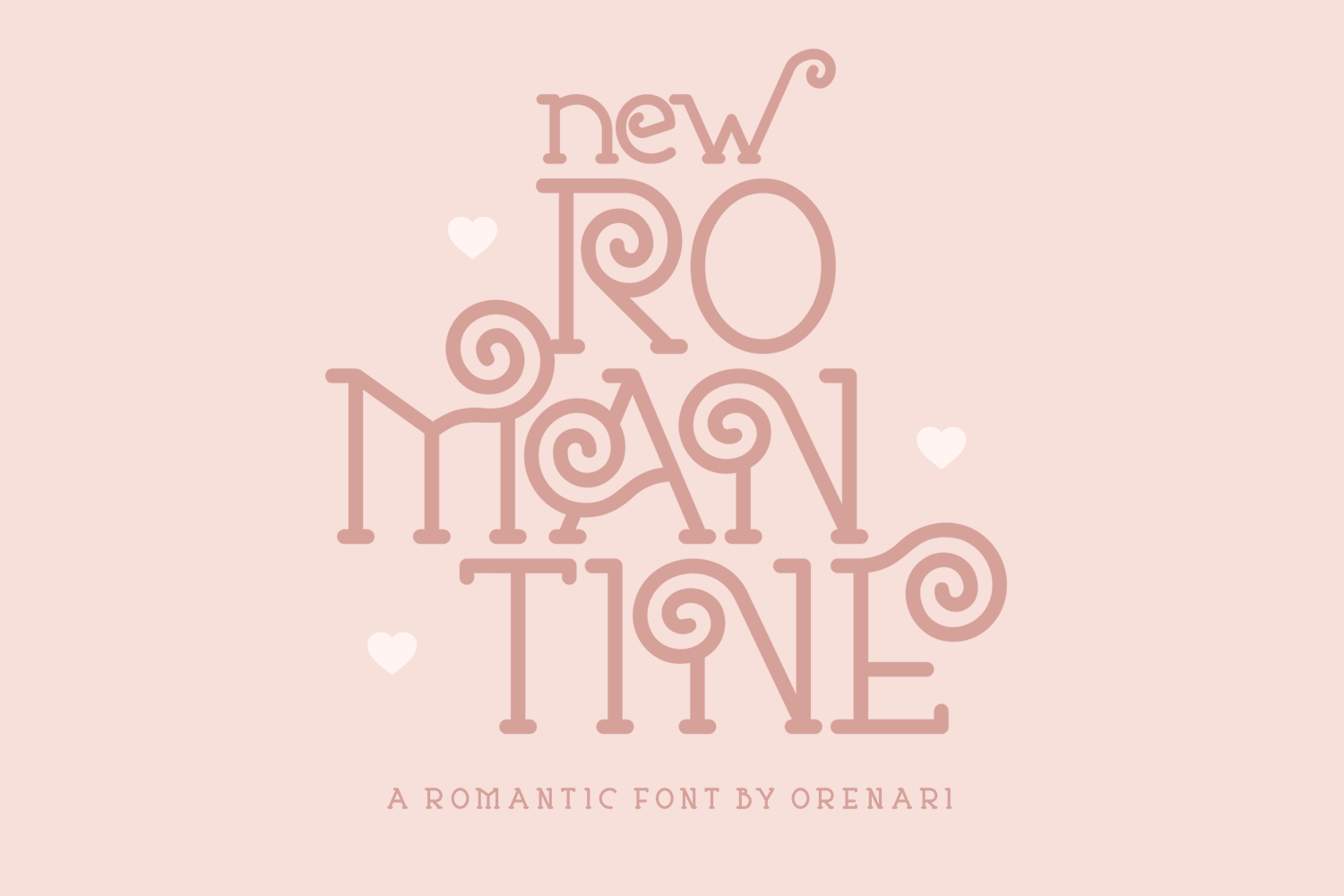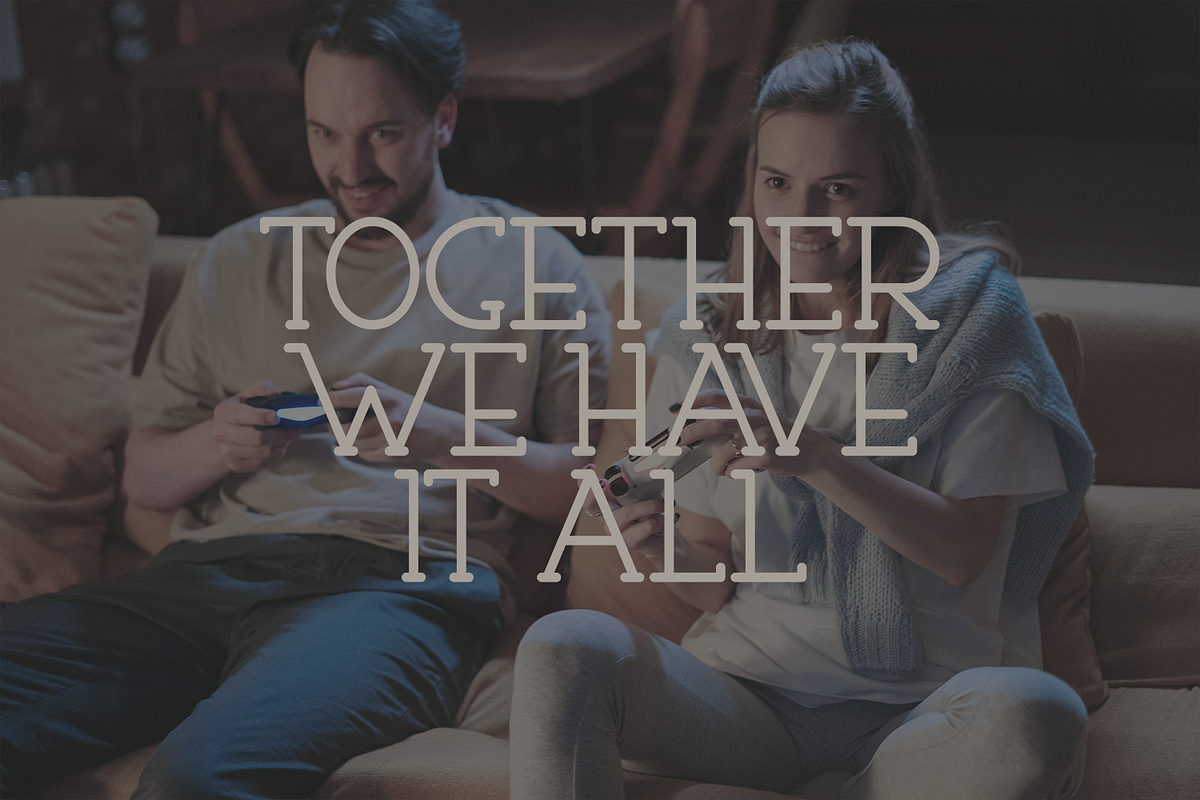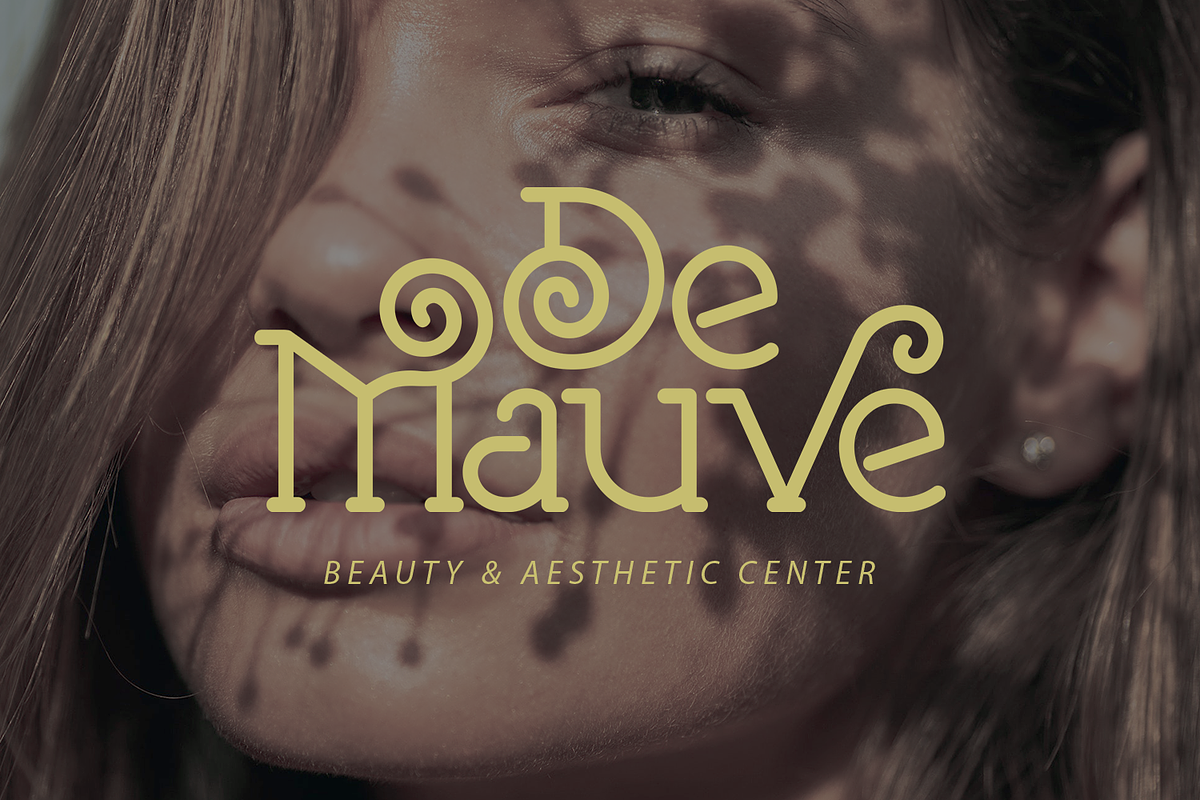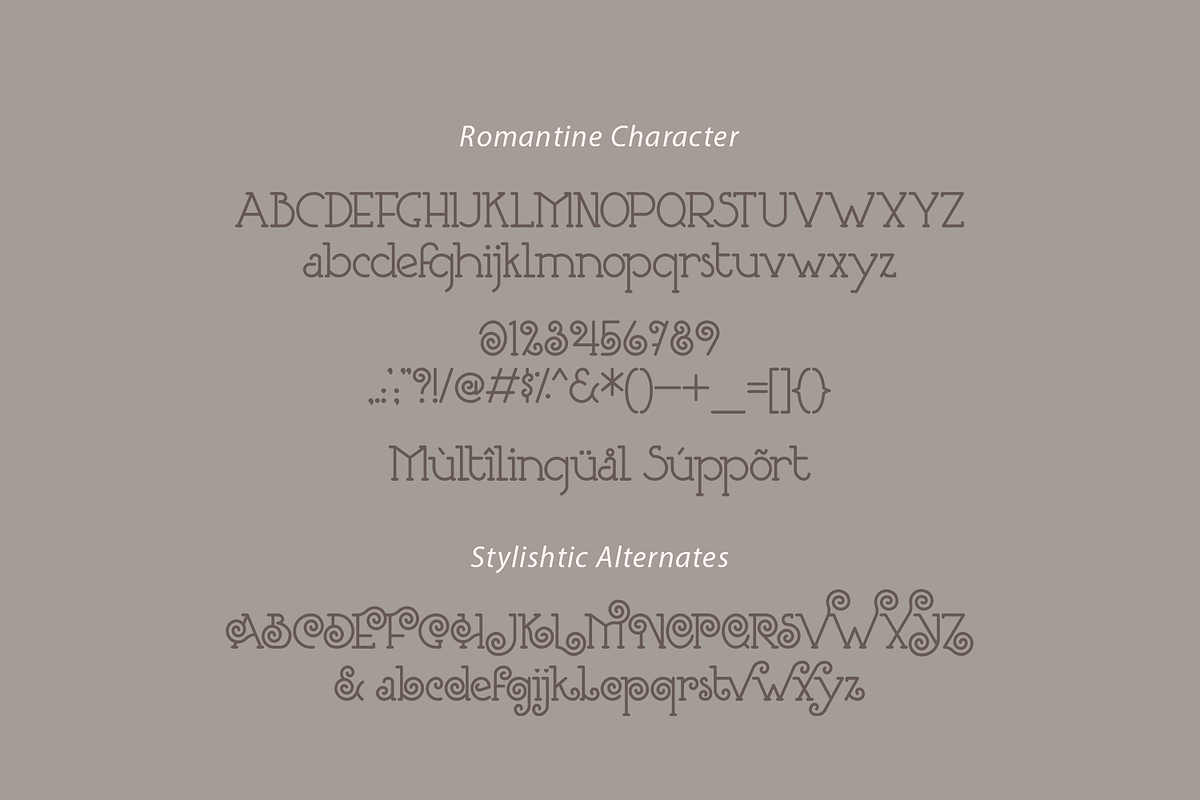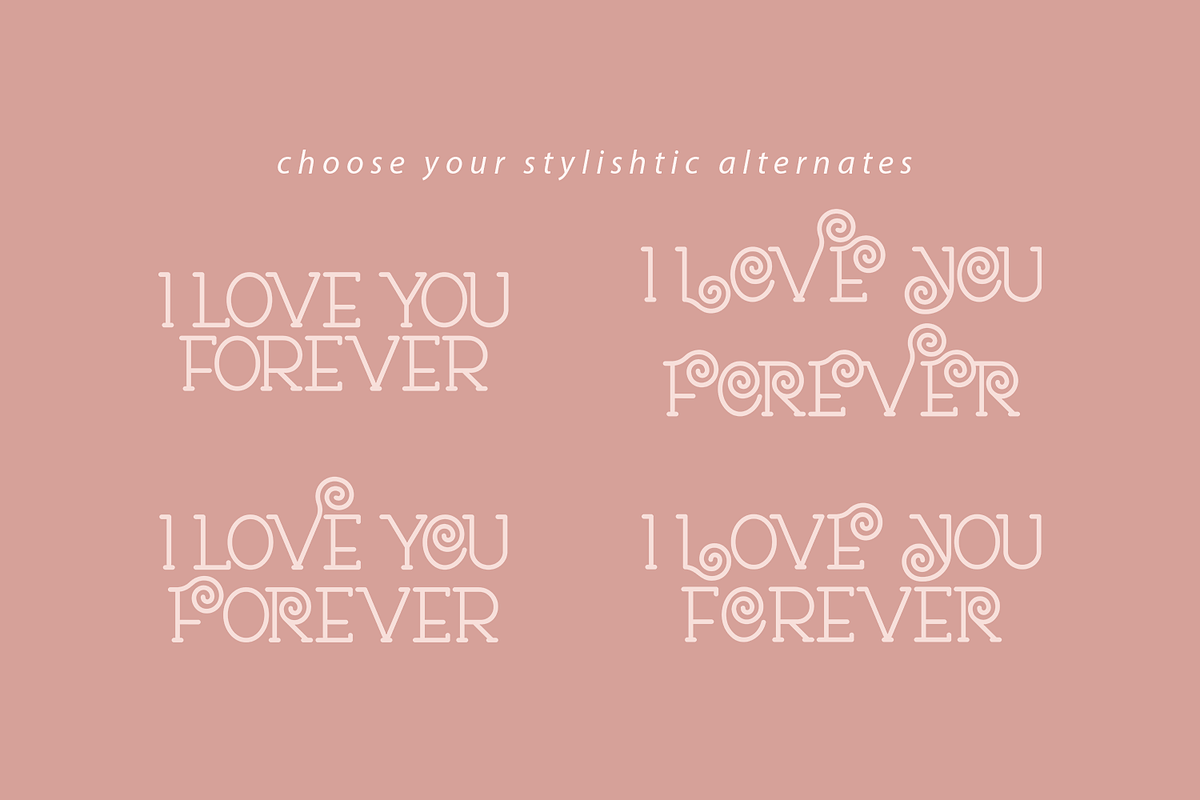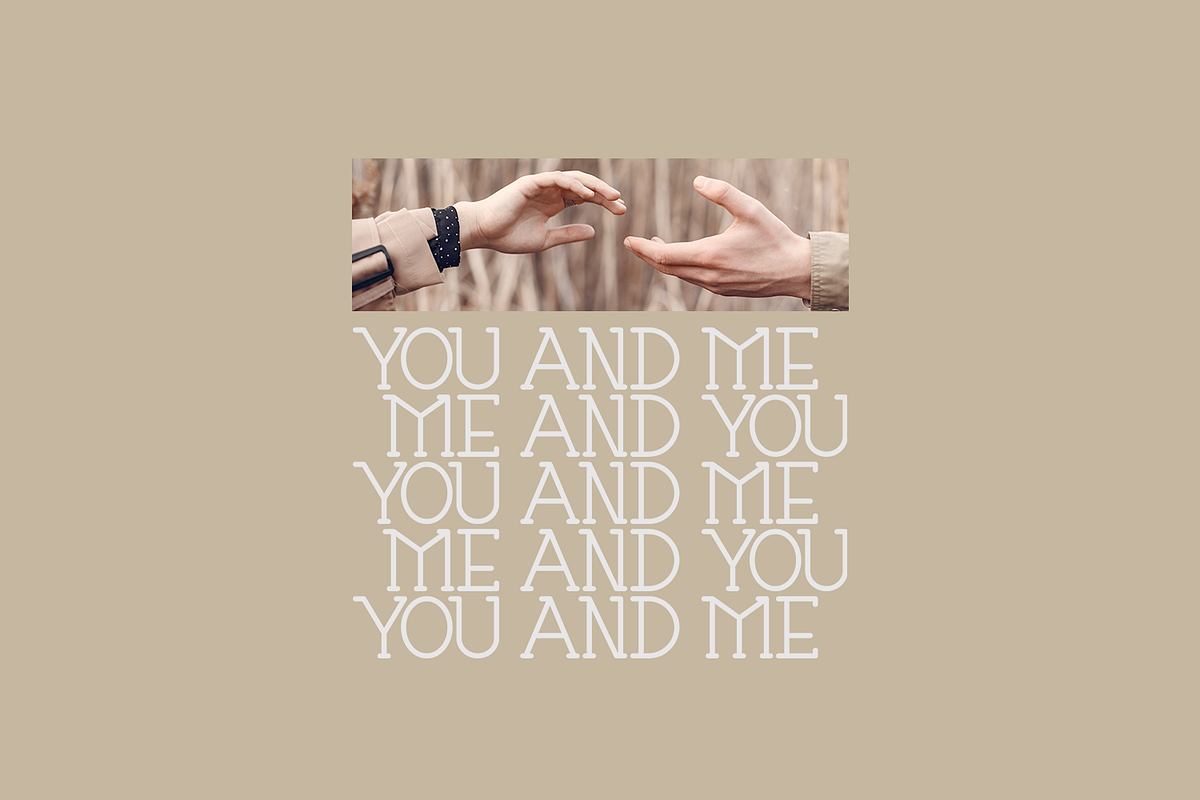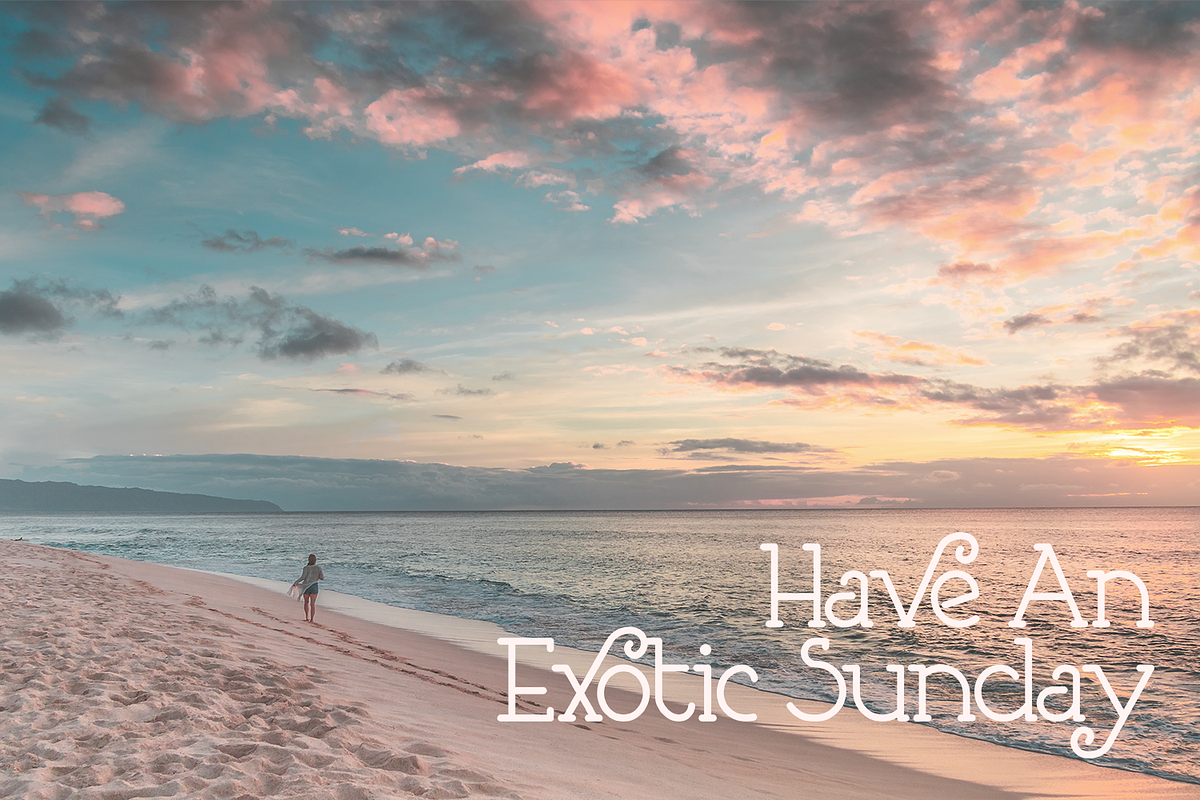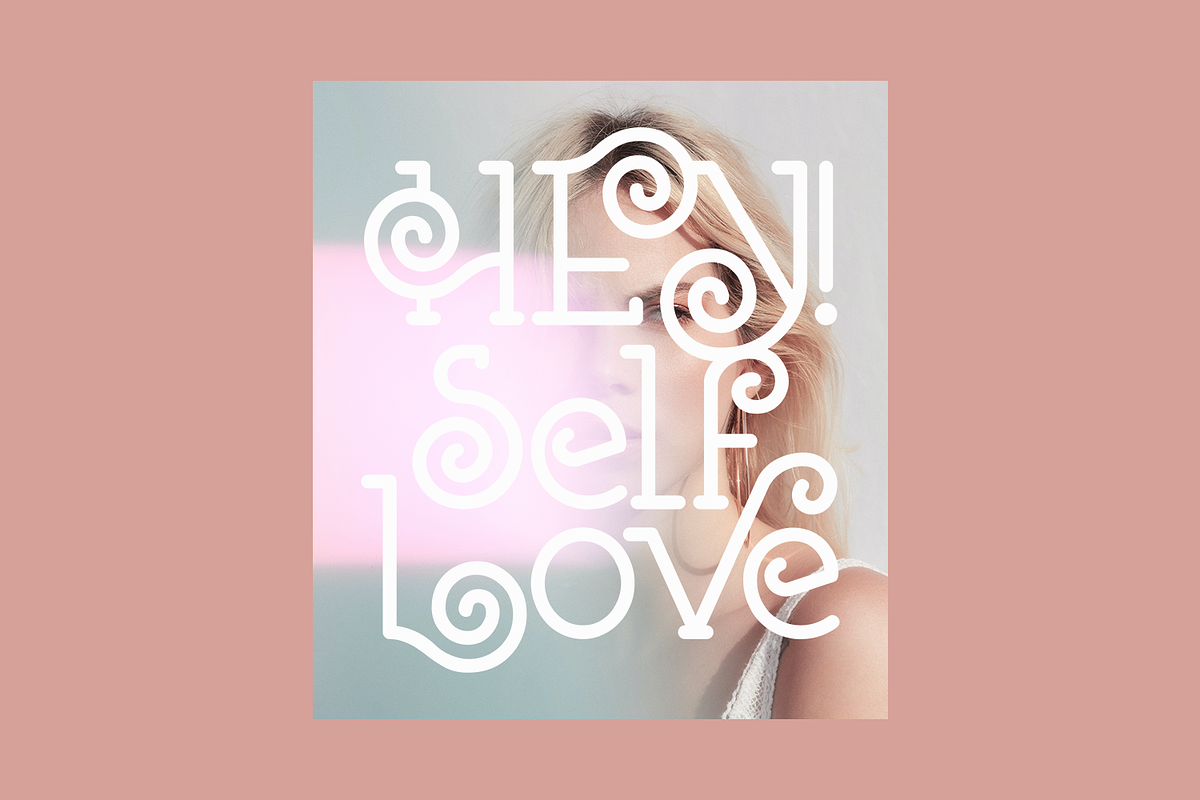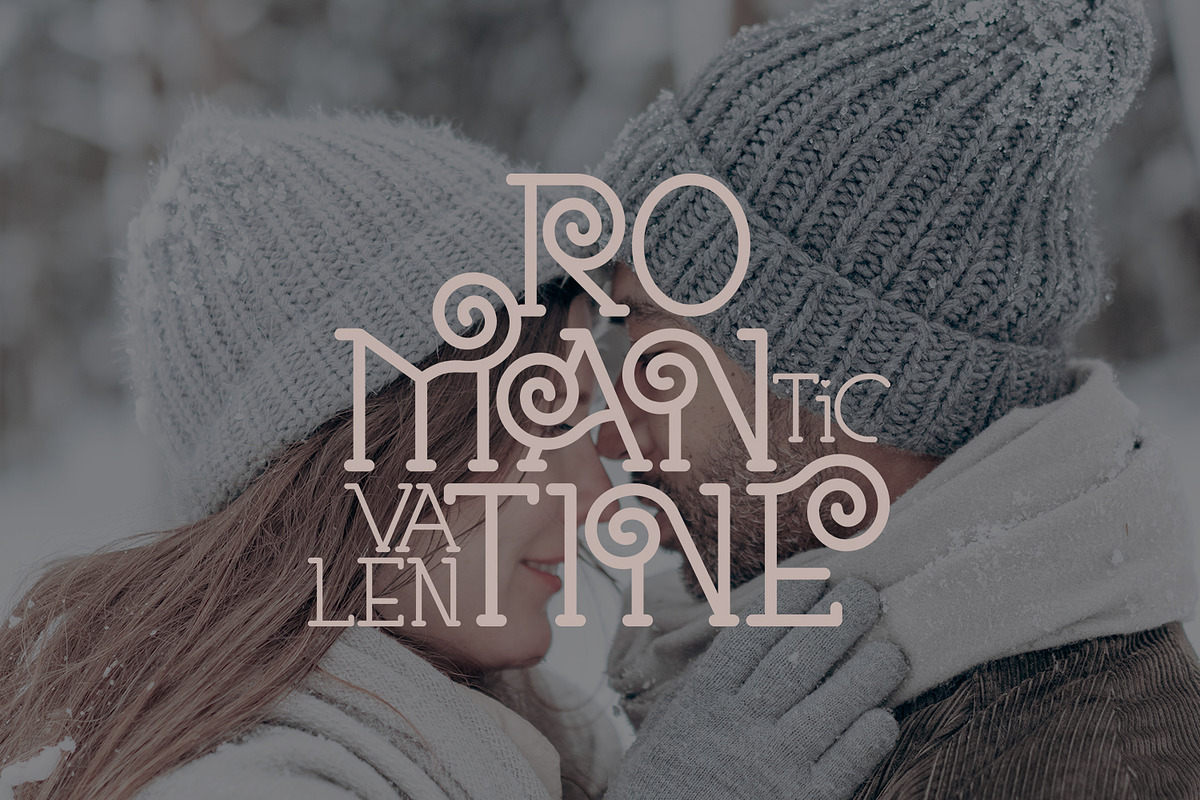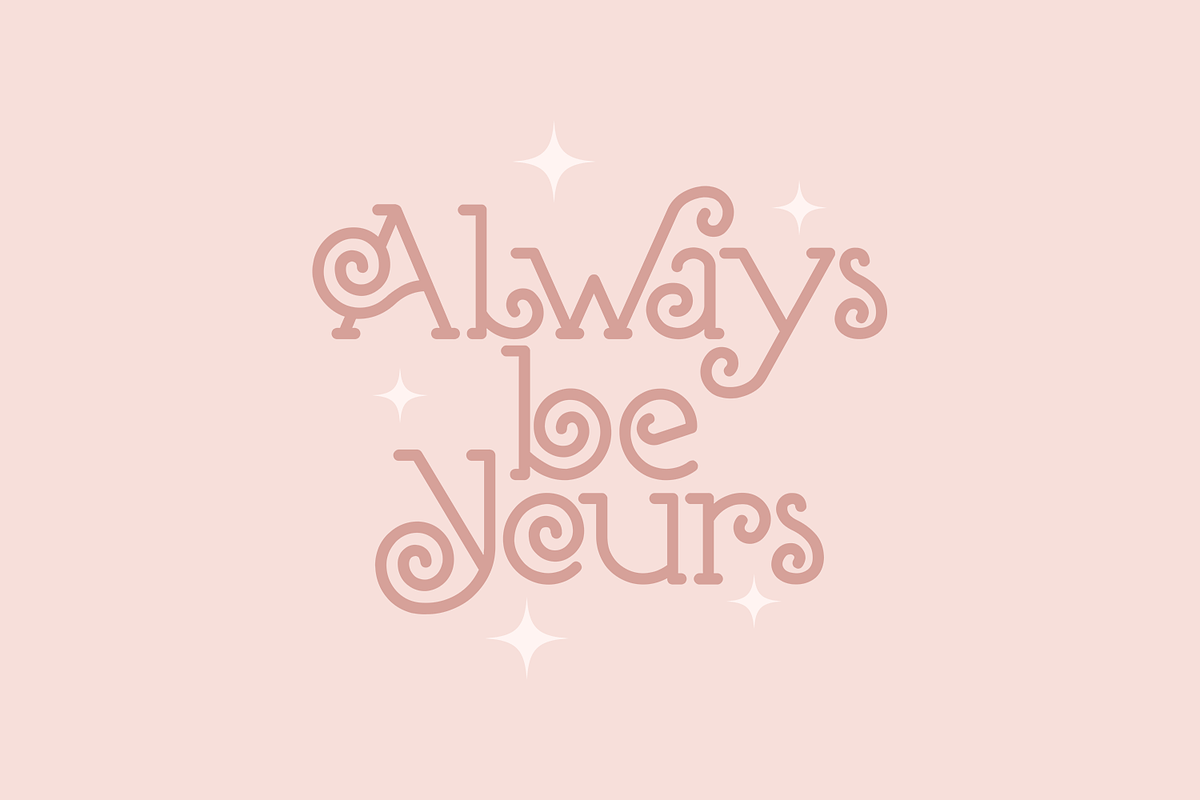
New Romantine ~ Romantic Font
Hi! It's Orenari here want to introduce a romantic display serif font, Romantine. This font has lovely curves and almost of all the uppercase and lowercase has stylishtic alternates.
The fact of this font is Romantine was my very first font. This New Romantine is the newer version of Romantine. It's bolder than the old version. Just launch the New Romantine in February so this font will bring the Valentine's Vibe to your creative projects.